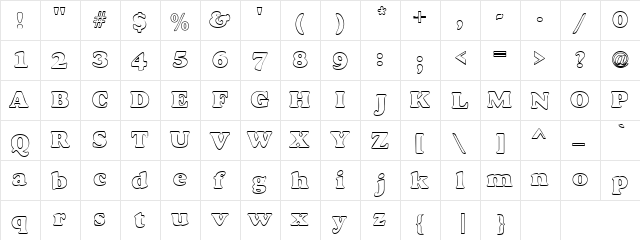
SouvenirOpenFaceSSK Regular
Design Context for SouvenirOpenFaceSSK Typeface
SouvenirOpenFaceSSK offers clean, dependable letterforms without strong stylistic allegiance, making it a practical choice for designers who need flexibility.